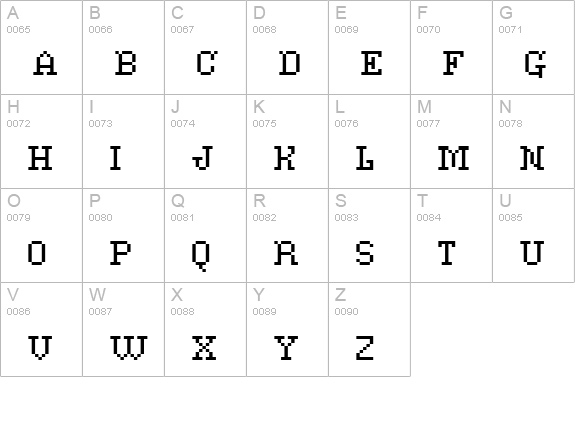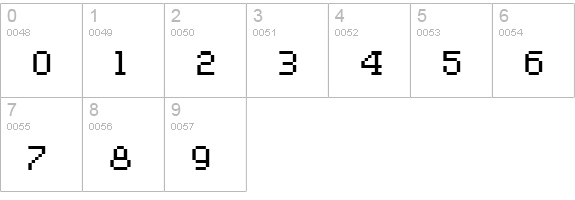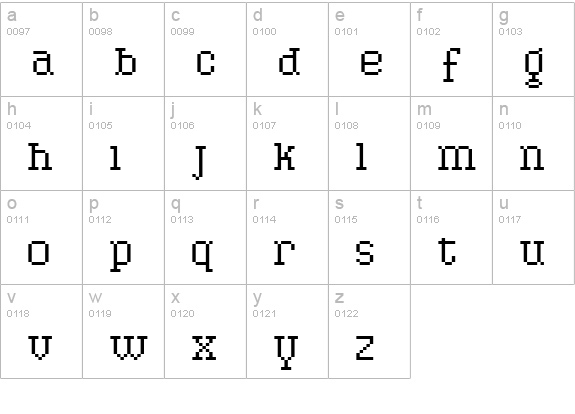
PixelPirate Font Details
Introducing PixelPirate, a captivating and adventurous font that will transport you straight into the thrilling world of swashbuckling pirates and hidden treasures. This unique typeface combines the charm of old-world typography with a modern twist, resulting in a truly mesmerizing design that is sure to make a lasting impression. PixelPirate boasts a distinctive pixelated style, reminiscent of classic video games and retro computer graphics. Each letter is meticulously crafted to evoke a sense of nostalgia and excitement, making it the perfect choice for any project that requires a touch of whimsy and playfulness. What truly sets PixelPirate apart is its versatility. Whether you're designing a pirate-themed party invitation, creating eye-catching signage for a pirate-themed event, or adding a touch of flair to your digital creations, this font is sure to be your go-to choice. Its bold and impactful characters make a statement and demand attention, while its intricate details and carefully balanced proportions ensure legibility and readability across various platforms and mediums. And the best part? PixelPirate is available to download for free at FontsMarket.com. That's right, you can bring the spirit of adventure to your designs without breaking the bank. Whether you're a seasoned graphic designer or an enthusiastic DIY enthusiast, this font is accessible to all, allowing you to unleash your creativity without any limitations. So, set sail on a typographic voyage like no other with PixelPirate. Let its bold strokes and playful curves guide you through uncharted waters of design possibilities. Download it for free at FontsMarket.com and embark on a thrilling journey where imagination knows no bounds.